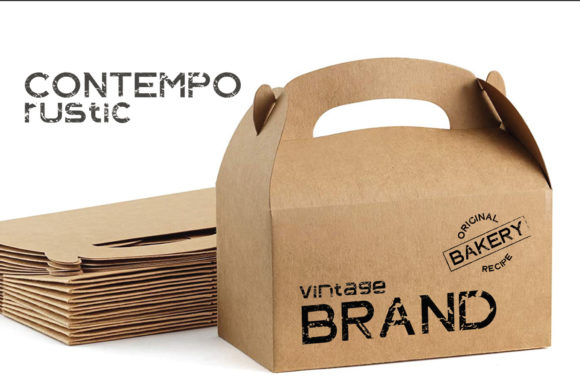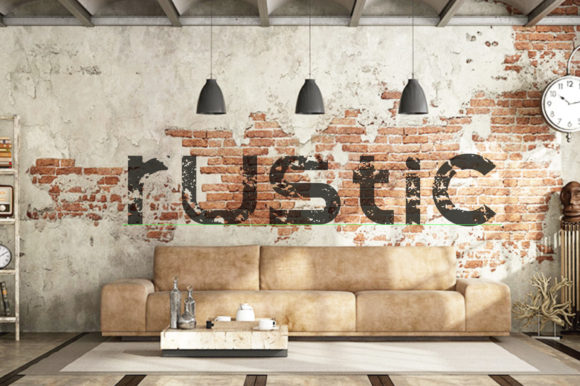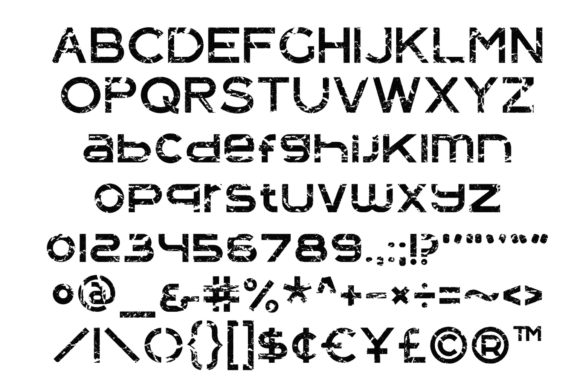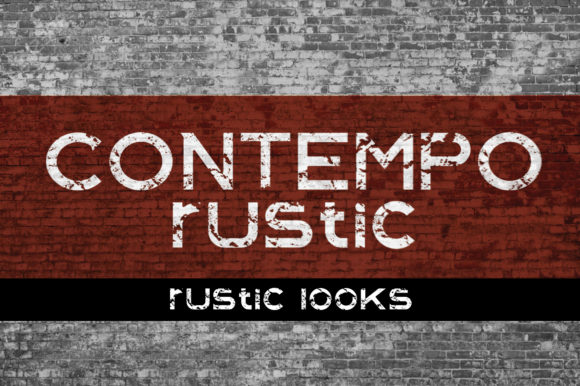
I still remember the frustration of working on a project, hours spent perfecting every detail, only to be stumped by one thing: the font. My client wanted something bold, yet genuine; assertive, yet rustic. I scoured the internet, tried countless combinations, but nothing seemed quite right. That’s when I stumbled upon **Contempo Rustic**, a game-changing display font that added the perfect touch to my design.
First Impressions: A Bold and Rustic Font
Contempo Rustic is a bold, genuine, and assertive display font with a rough texture that immediately caught my attention. Its unique blend of modernity and rustic charm makes it perfect for adding a cool touch to web designs, business cards, and more.
- ✨ Unique texture: The rough texture gives Contempo Rustic a distinctive, handcrafted feel that’s hard to find in digital fonts.
- ✅ Versatility: This font works well in a variety of design contexts, from web headers to print materials.
- 💡 Instant impact: Contempo Rustic is a bold font that grabs attention without being overpowering.
While Contempo Rustic is an excellent font, there are a few things to keep in mind: 🤔
- ⚠️ Legibility at small sizes: Due to its bold nature and texture, Contempo Rustic may not be the best choice for body text or small font sizes.
- ⚠️ Limited OpenType features: While Contempo Rustic has some useful glyphs and stylistic alternates, it may not offer the same level of complexity as some other fonts.
The Story Behind Contempo Rustic
Contempo Rustic was designed with the goal of creating a font that blends modernity with a touch of rustic charm. While the designer’s inspiration is unclear, it’s easy to imagine a creative process that involved experimenting with different textures and styles to achieve a unique look.
Q: What type of projects is Contempo Rustic best suited for?
A: Contempo Rustic is perfect for projects that require a bold, yet genuine touch, such as web designs, business cards, and more.
Q: How does Contempo Rustic compare to other display fonts?
A: Contempo Rustic stands out from other display fonts due to its unique texture and blend of modernity and rustic charm.